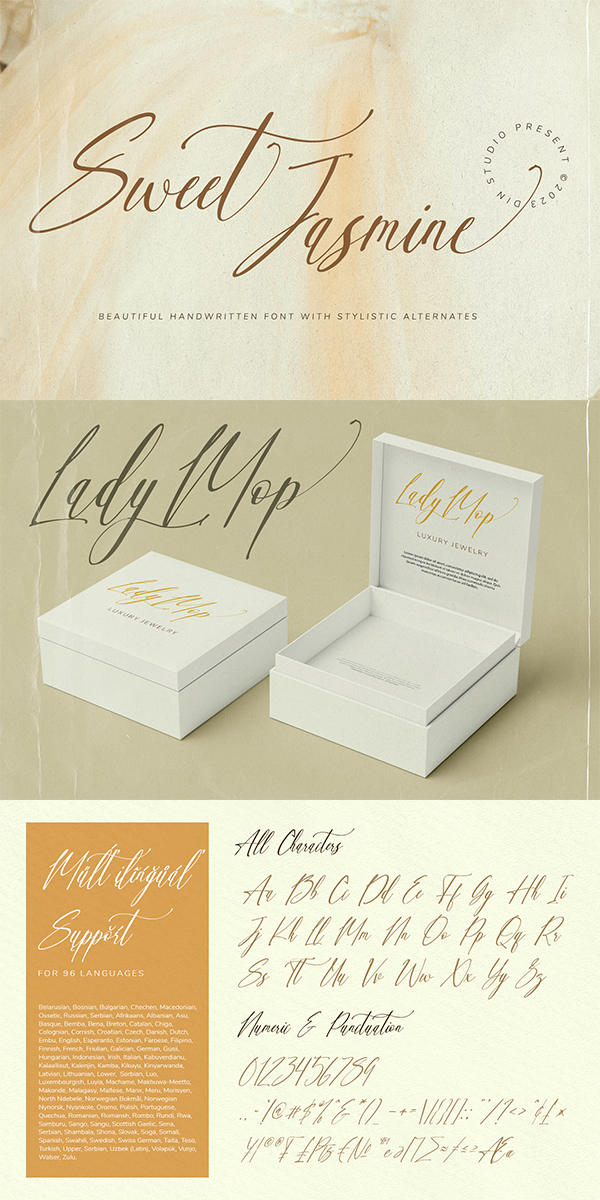
Sweet Jasmine Font
Designed by Natha Type
About Sweet Jasmine
Sweet Jasmine is a handwriting-like script font created with mixing the natural handwriting elements with natural nuances to produce warm, flowing-looking designs. Its letters are interconnected in high contrasts, and it is suitable to apply for big text sizes because it has somewhat complicated font style details to ease the font to read. In addition, you can enjoy the available features here.)
Sweet Jasmine fits best for various design projects, such as brandings, posters, banners, invitations, greeting cards, magazine covers, quotes, printed products, merchandise, social media, etc. Find out more ways to use this font by taking a look at the font preview.